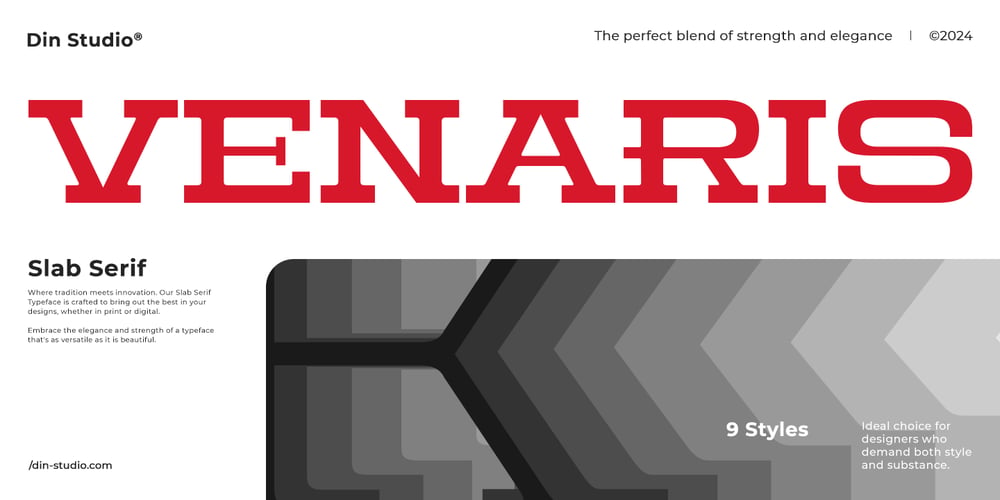
Venaris Font Family was designed by Donis Miftahudin and published by Din Studio. Venaris contains 9 styles and family package options. Introducing Venaris-a sophisticated slab serif font family that embodies modern elegance. Crafted in 8 distinct weights, Venaris offers versatility and refinement for a wide range of design projects. Its clean lines and balanced proportions provide a contemporary aesthetic, while the robust slab serifs add a touch of timeless strength. Elevate your typography with the polished style of Venaris. In addition, enjoy the features here.Features: Multilingual Supports PUA Encoded Numerals and Punctuations Venaris fits in logos, posters, flyers, branding materials, print media, editorial layouts, and many more designs. Find out more ways to use this font by taking a look at the font preview.Thanks for purchasing our fonts. Hopefully, you have a great time using our font. Feel free to contact us anytime for further information or when you have trouble with the font. Thanks a lot and happy designing.